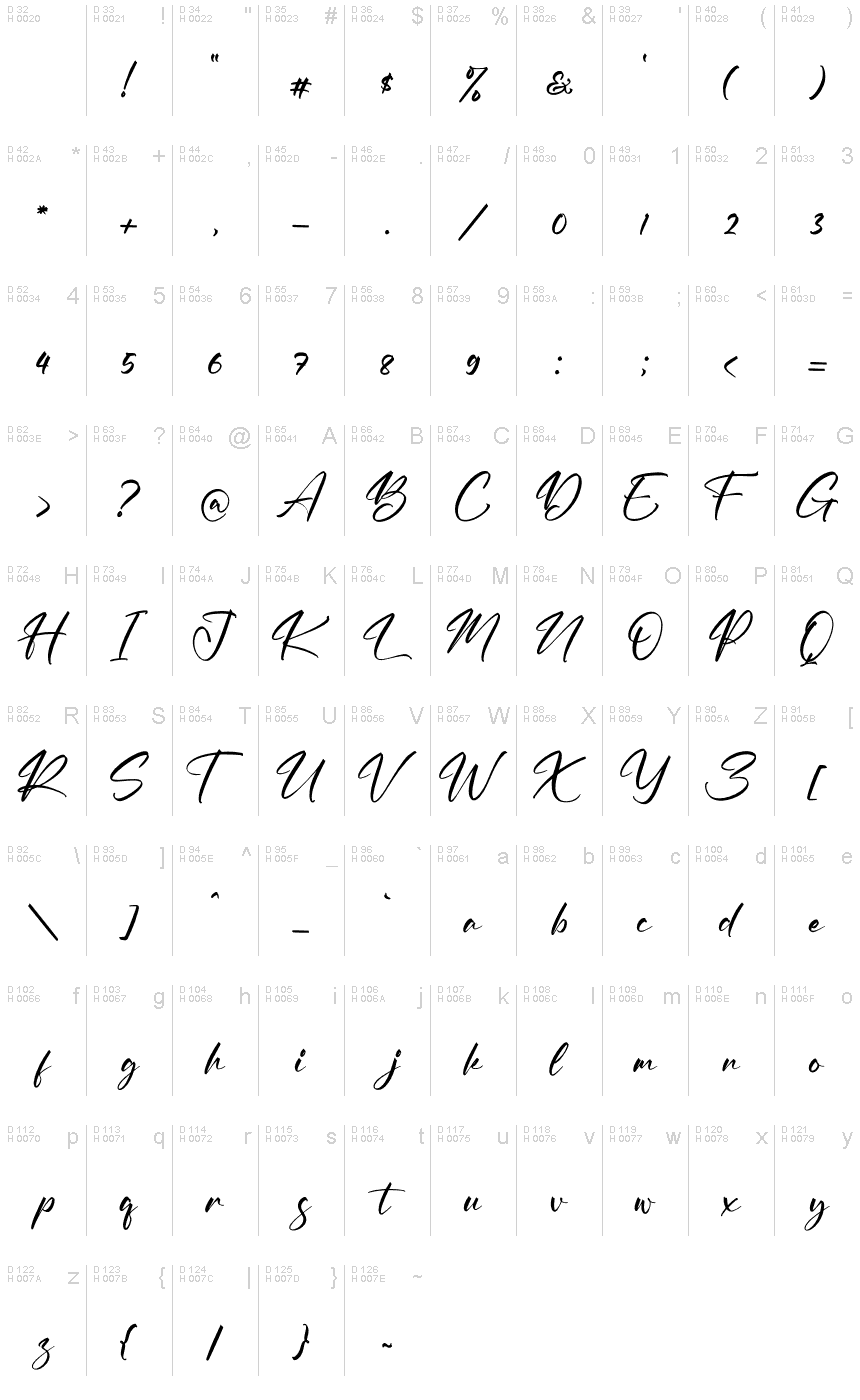
Meet Hunterland Signature, a captivating handwritten signature font by Letterena Studios. This enchanting typeface exudes elegance and grace, making it the perfect choice for luxury branding projects.
Its semi-light weight adds a touch of sophistication to wedding invitations, event posters, and fashion magazines. Whether you're aiming for a classic or contemporary look, Hunterland Signature will effortlessly elevate your designs with its exquisite curves and fluid strokes.
Let this stylish font leave a lasting impression on your next project, giving it an air of authenticity and refinement.